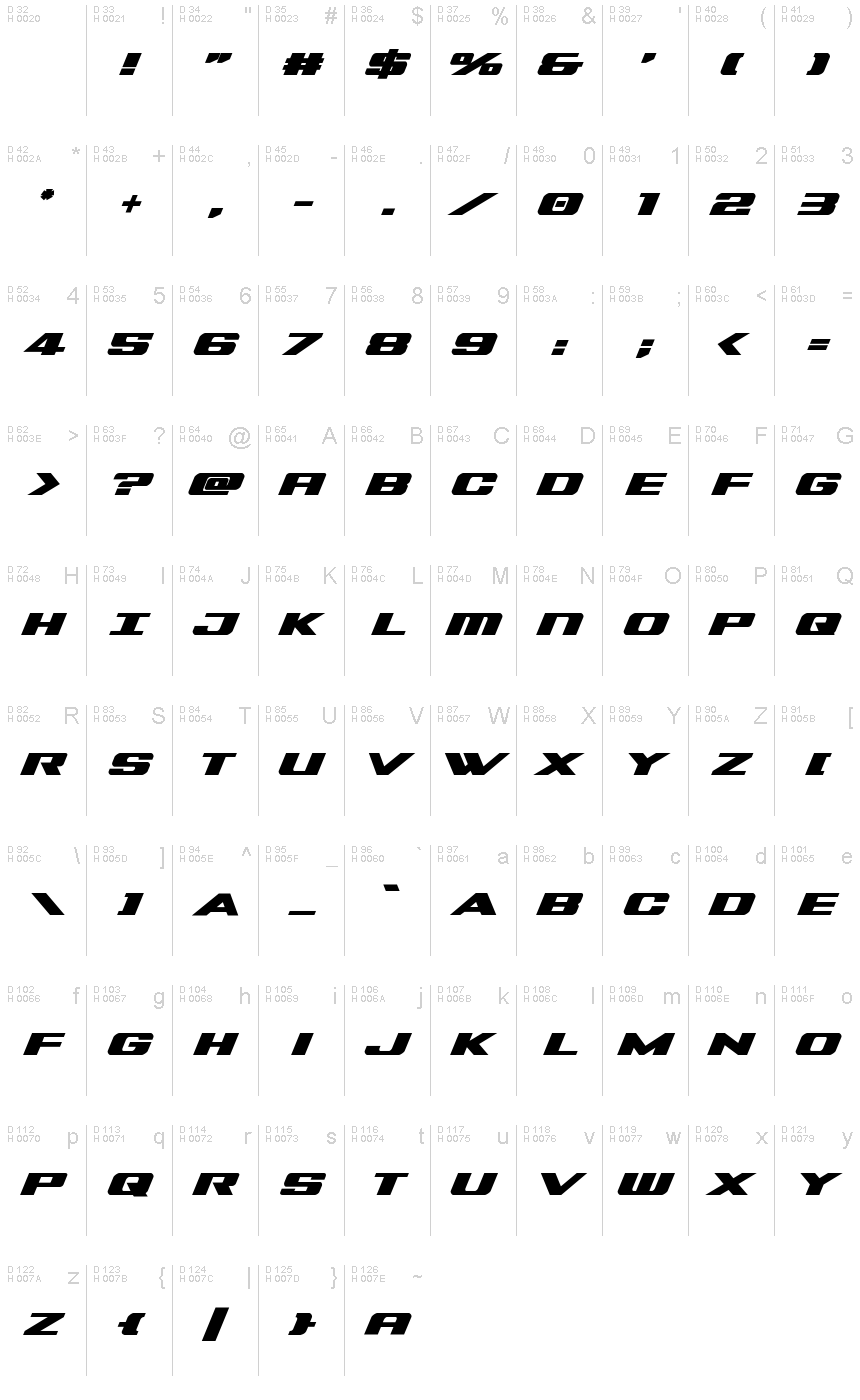
Tigershark Bold Italic, created in 2024 by Iconian Fonts, is a free modern display font with a fast, engineered profile. Its broad, sharply slanted letters use clipped corners and deep angular cuts, giving the caps a mechanical edge. The weight is substantial, yet the open slices keep the forms from looking solid or blunt.
Speed and technology themes make it a strong fit for motorsport branding, esports graphics, and science-fiction posters. Album covers and athletic merchandise can draw on the same forward thrust, linking uses through the lettering's low, aerodynamic silhouette.